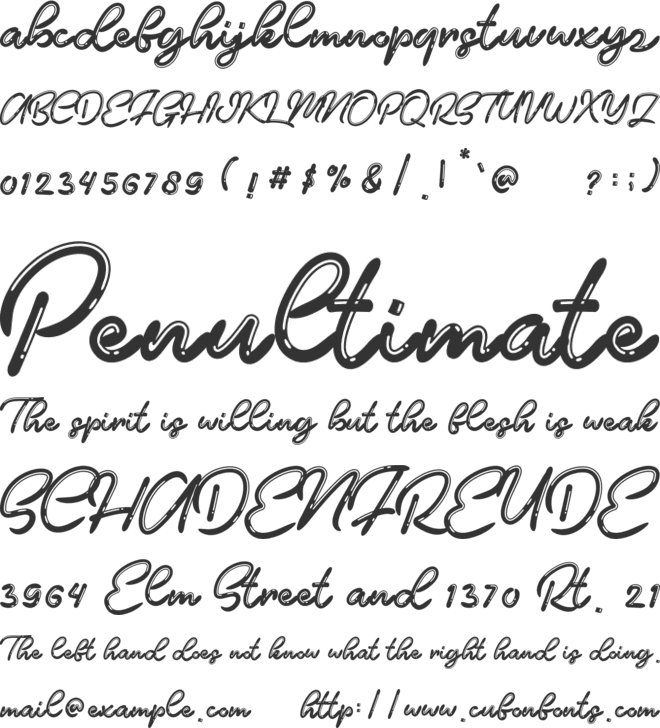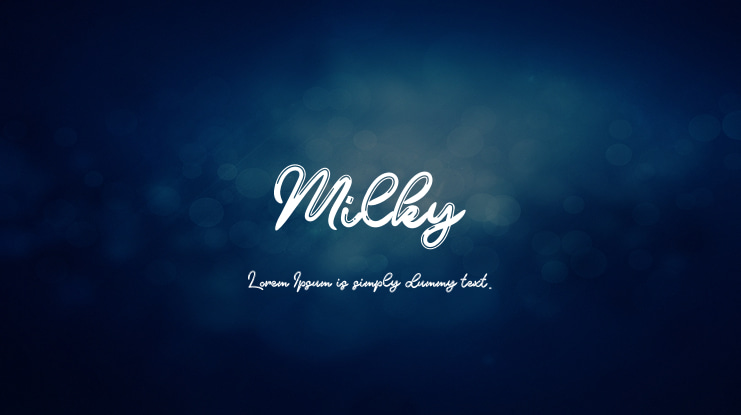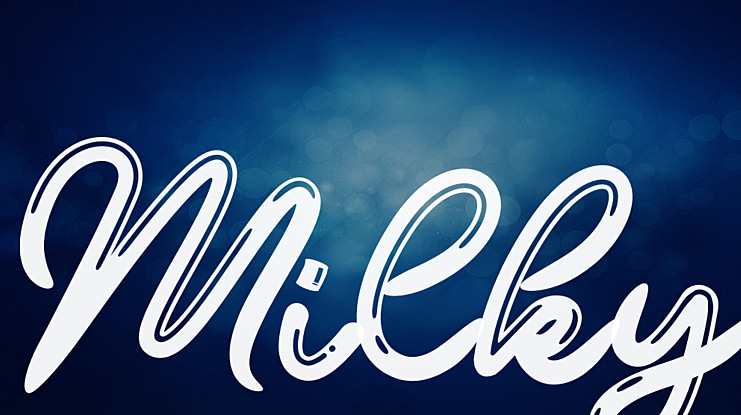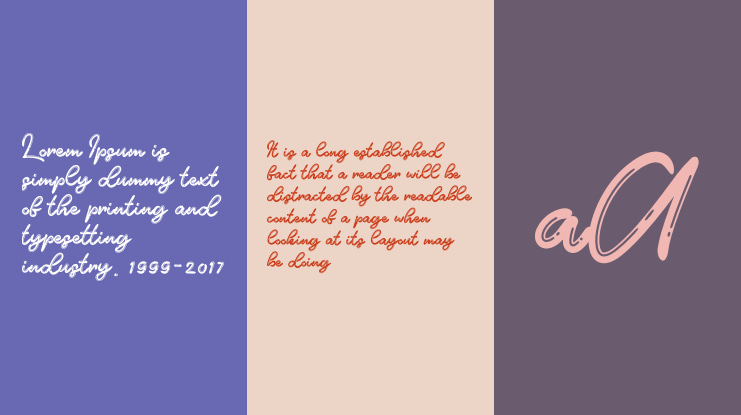
Milky Font
Milky is a fun and friendly handwritten font. No matter the topic, this font will be an incredible asset to your fonts' library, as it has the potential to elevate any creation.